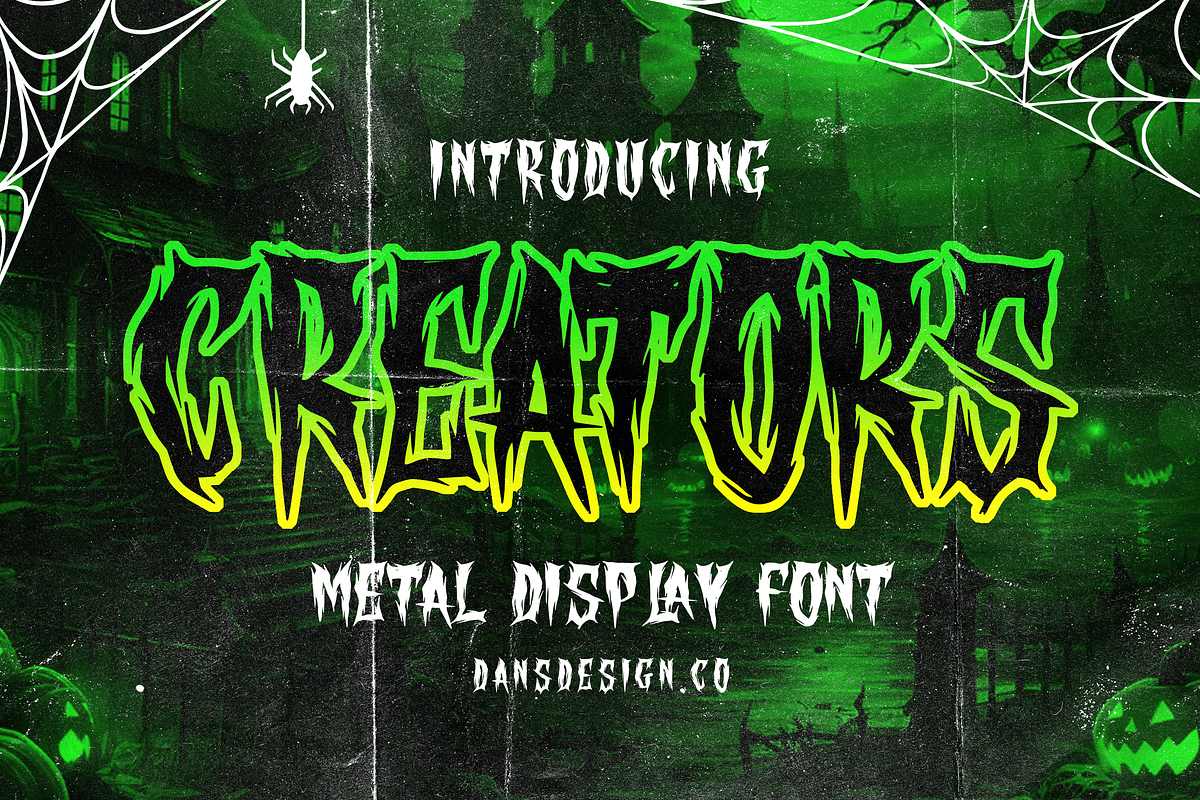
CREATORS Blackletter Metal Horror Font Free Download is a bold, intimidating typeface inspired by gothic blackletter style and heavy metal aesthetics. With its sharp angles, distressed edges, and dramatic presence, this font is perfect for horror-themed projects, metal album covers, logos, posters, and any design needing a dark, edgy flair.
The font's powerful strokes and intricate details make it ideal for capturing the raw energy of metal culture and horror visuals. CREATORS includes uppercase and lowercase characters, punctuation, multilingual support, and works seamlessly on both Mac and Windows systems.